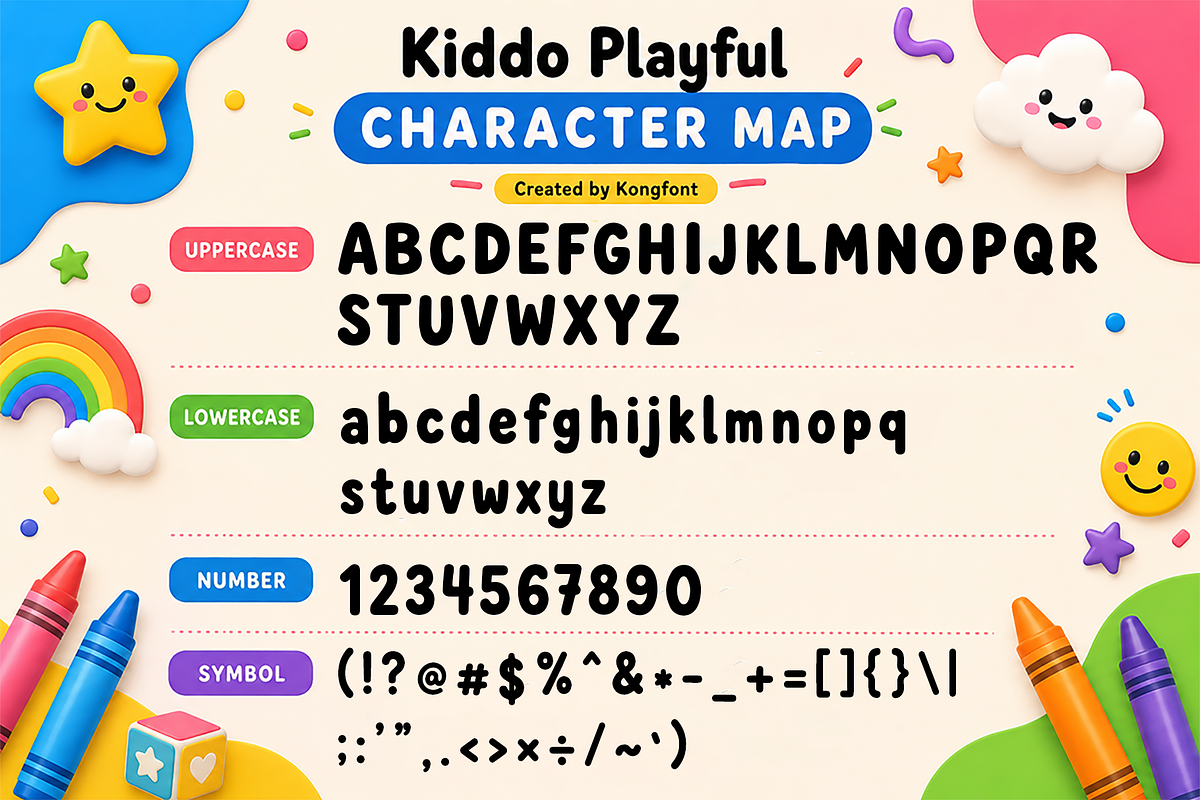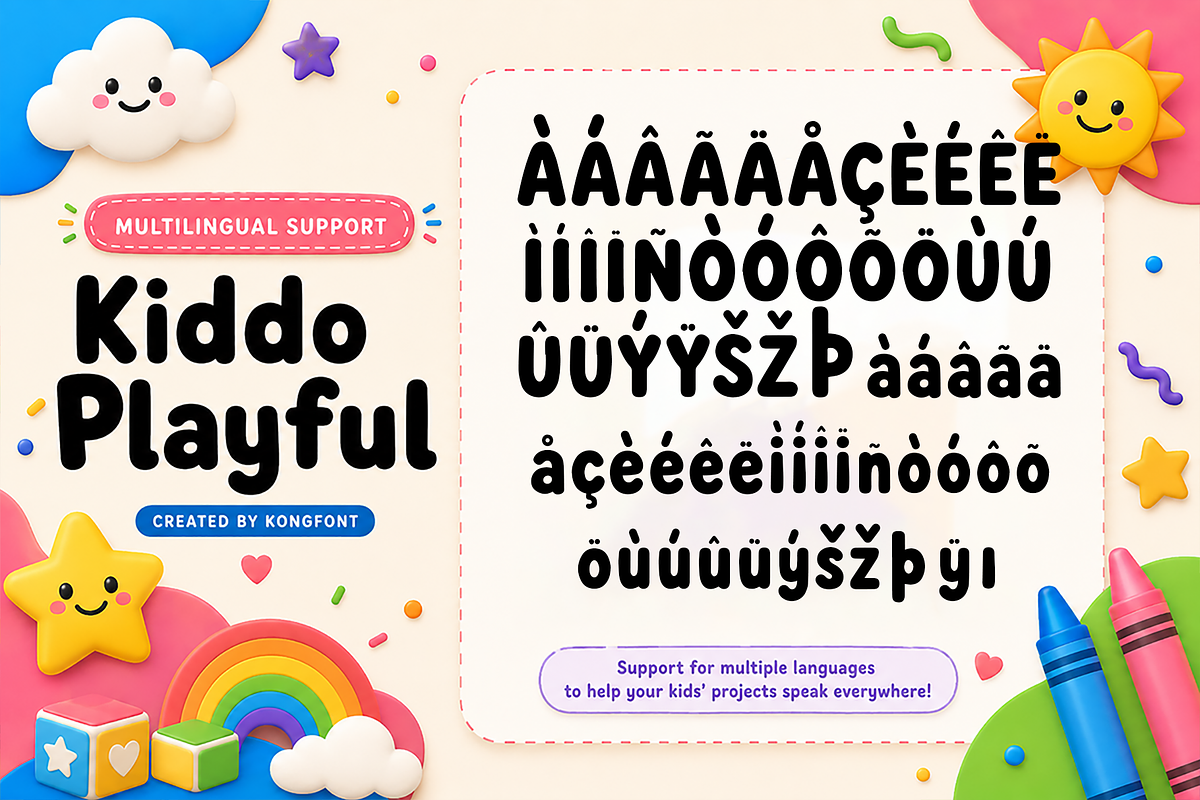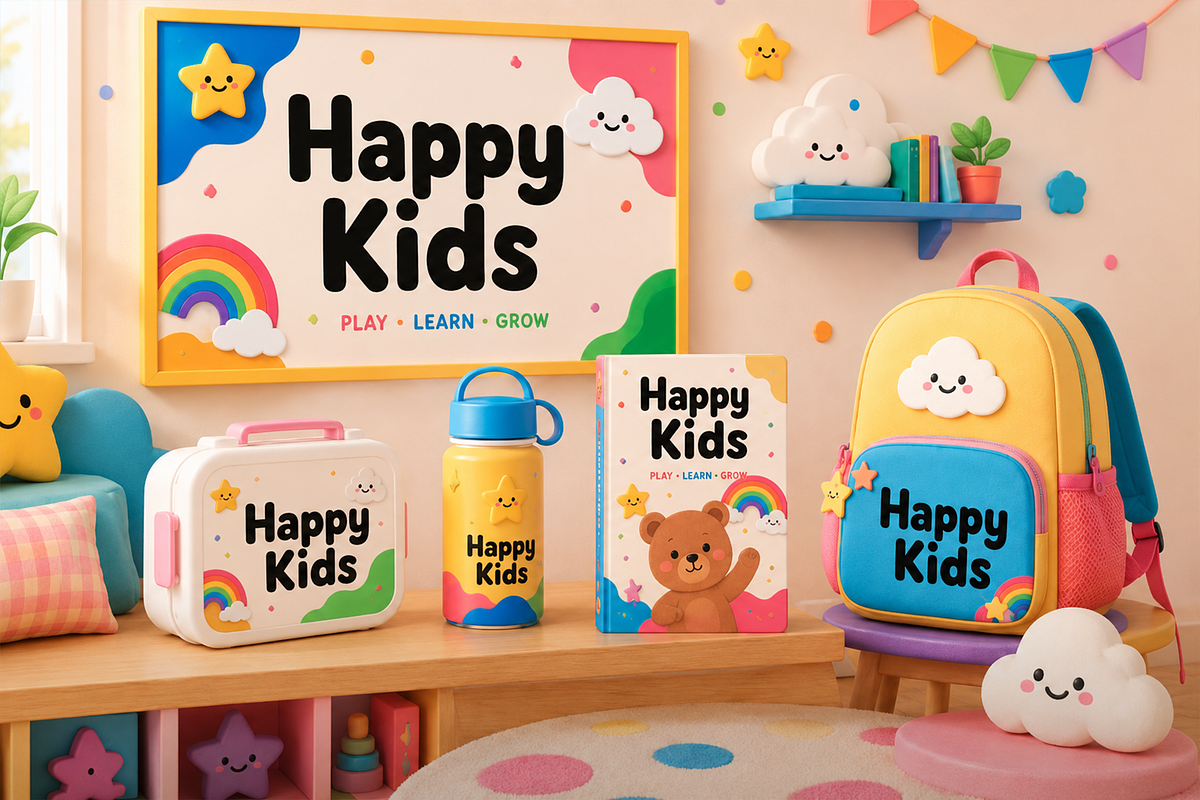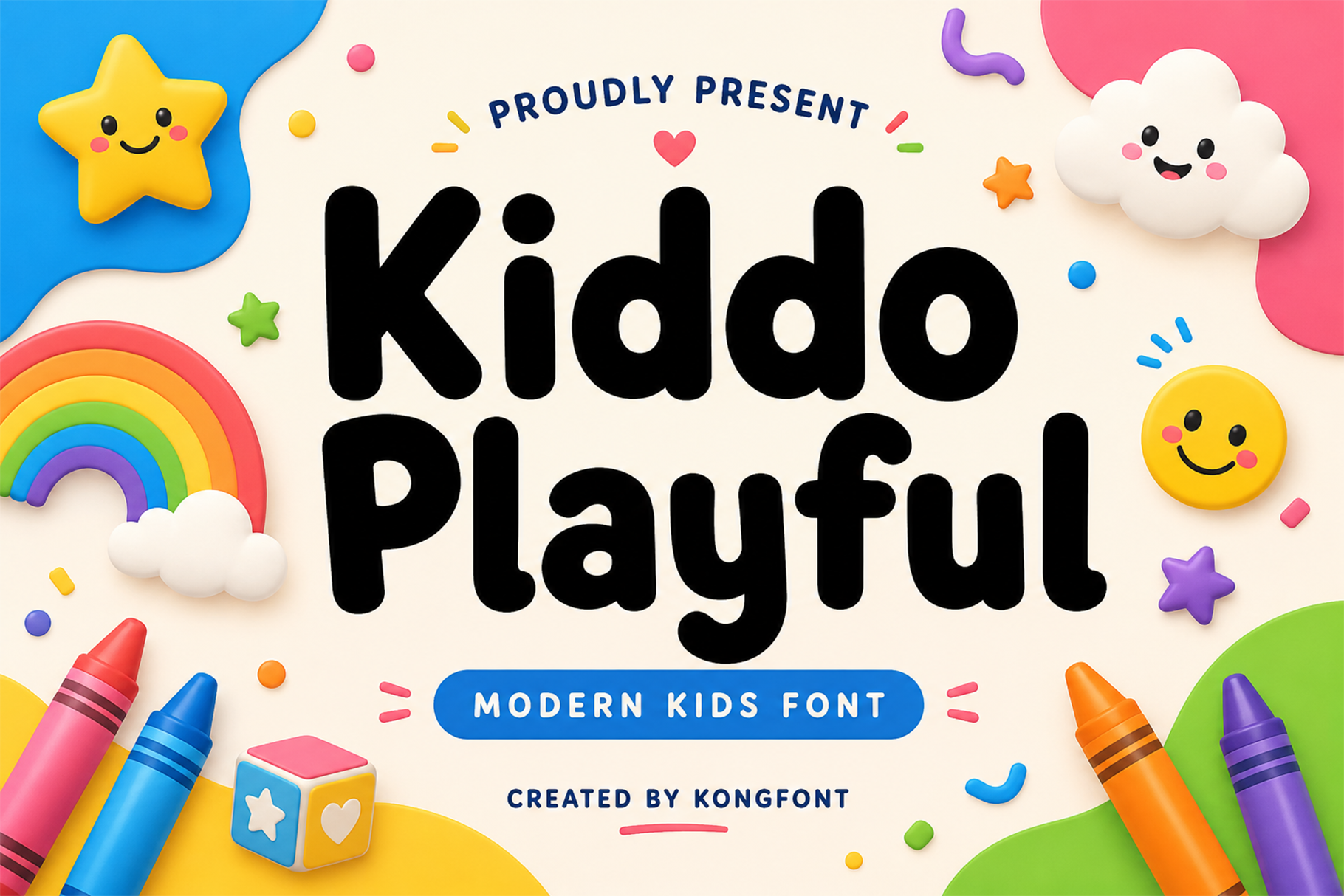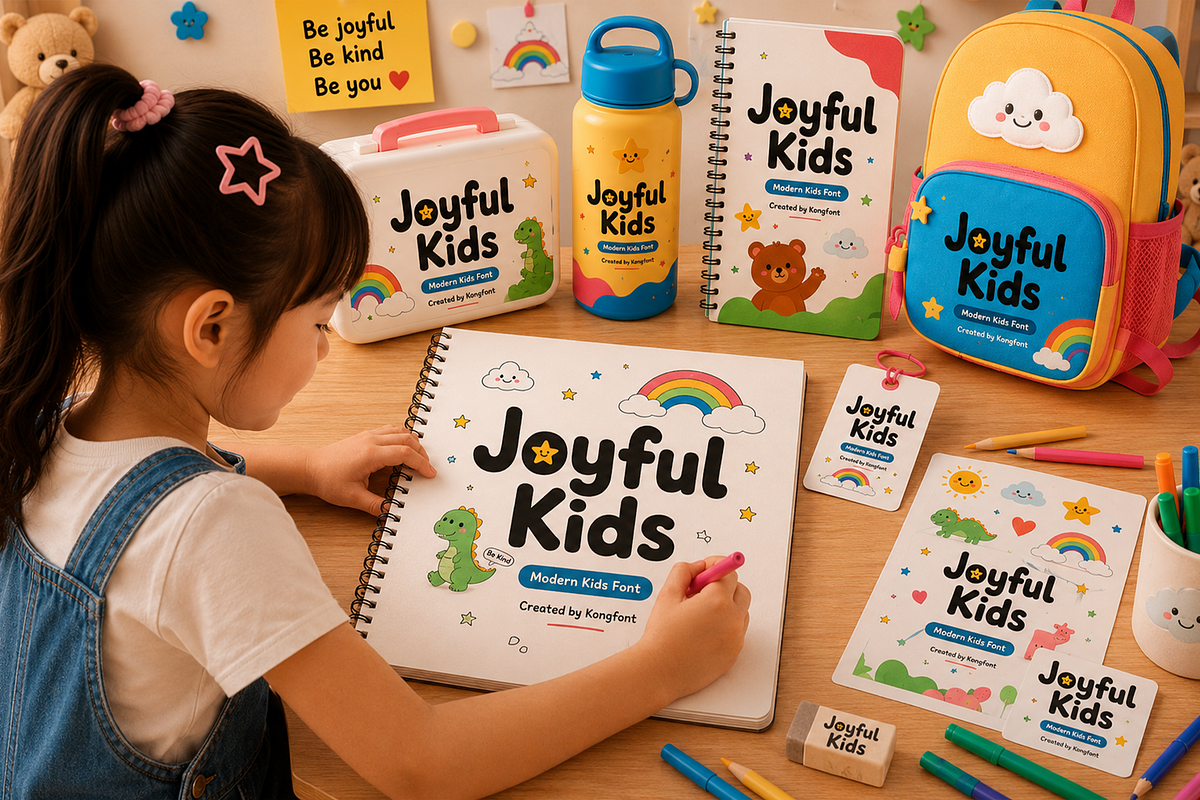
Kiddo Playful - Modern Kids Font
Kiddo Playful - Modern Kids Display Font
Meet "Kiddo Playful," a cheerful modern kids display font designed with bold shapes, soft rounded forms, and a friendly personality. Created to bring energy and happiness into every composition, Kiddo Playful delivers a fun and approachable typographic style that is perfect for colorful and child-friendly creative projects.
Kiddo Playful works especially well for designs aimed at kids, families, teachers, and creative lifestyle brands. Its simple yet expressive character makes it suitable for both digital and printed applications, from learning worksheets and storybook covers to merchandise, packaging, and promotional graphics.